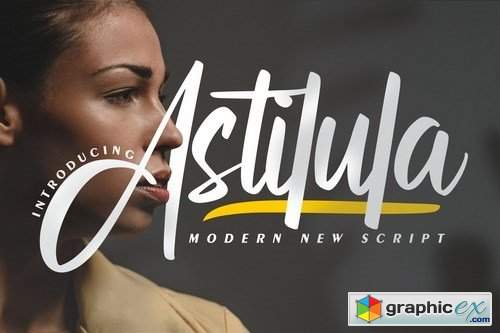
Astilula Modern New Script Font
Astilula | Modern New Script Font with a calligraphy style, So beautiful on invitation like greeting cards, branding materials, business cards, quotes, posters, and more!